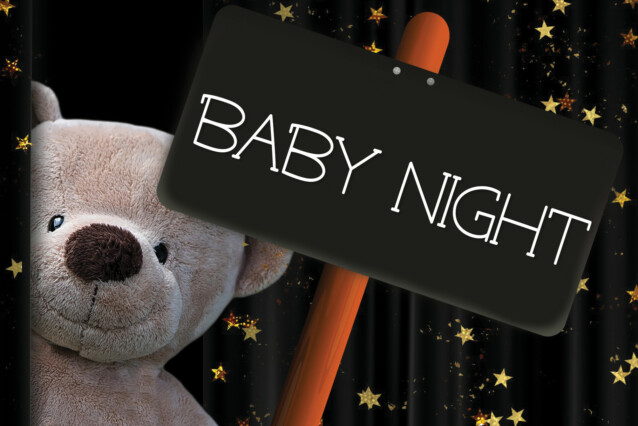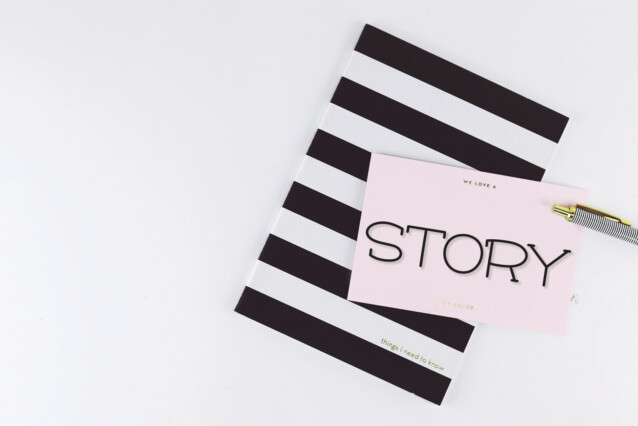
Miniline Display Font
Miniline Display Font is a clean and simple serif font. This typeface has thin lines and it’s perfectly suitable for branding, logos, business cards, posters, social media posts, and more.